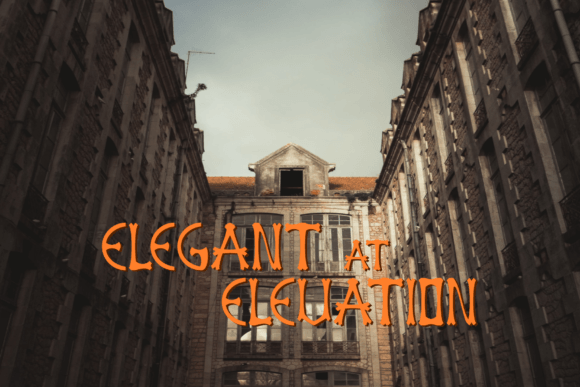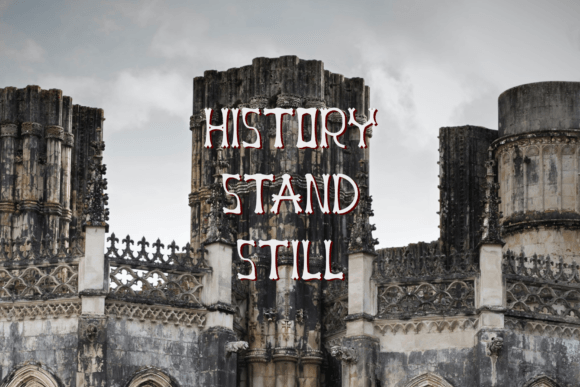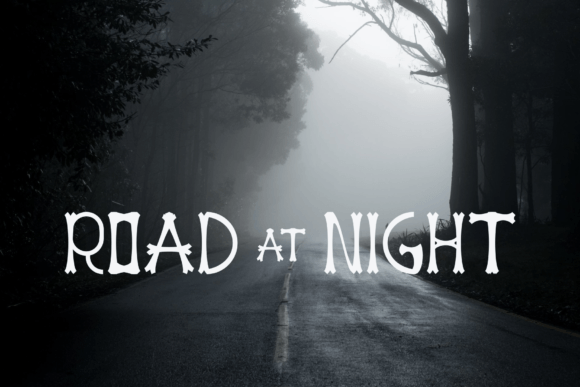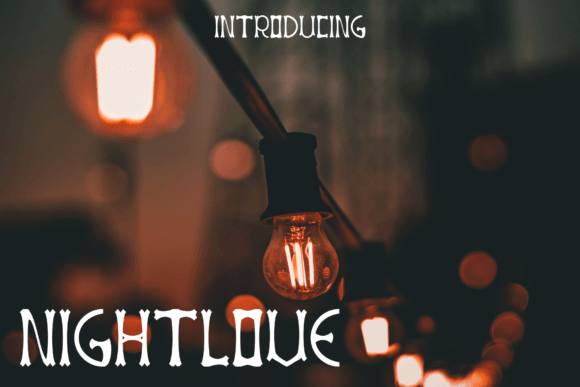
Introduction to Nightlove Font
Nightlove is a cute and quirky display font.
It will add an incredibly joyful touch to your designs Add this beautiful display font to each of your creative ideas and notice how it makes them stand out.
Why Choose Nightlove Font?
Nightlove Font offers exceptional quality and versatility, making it a valuable addition to your design toolkit. Whether you’re creating for personal projects or commercial use, Nightlove Font delivers professional results.